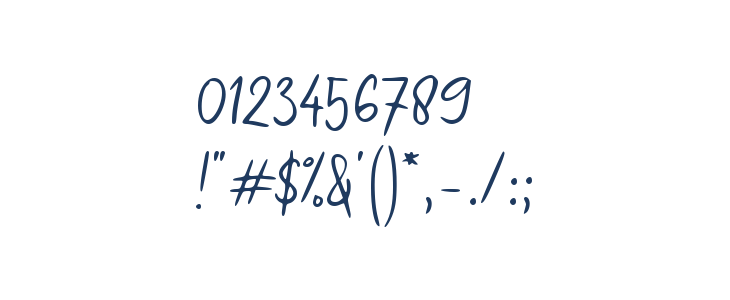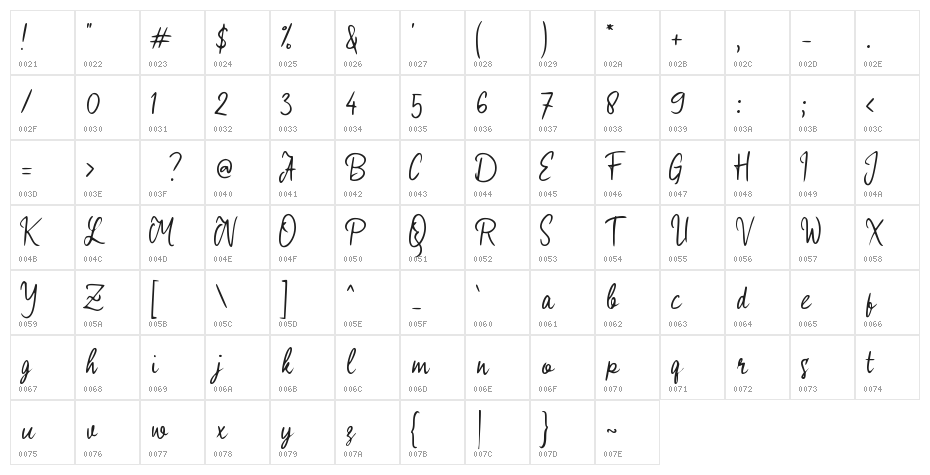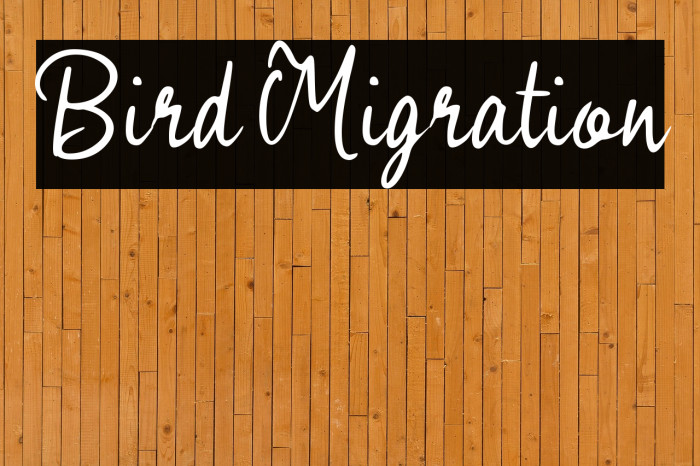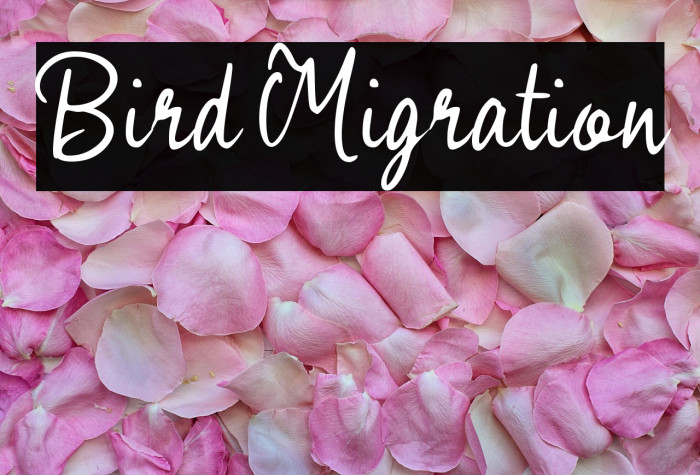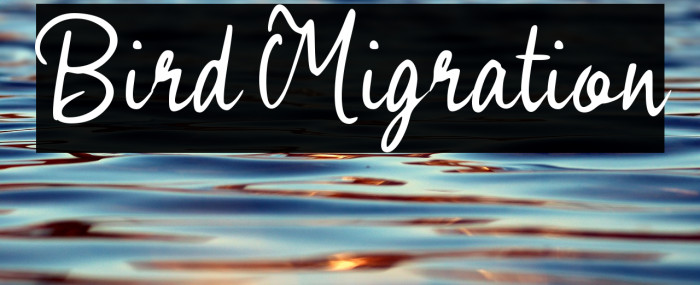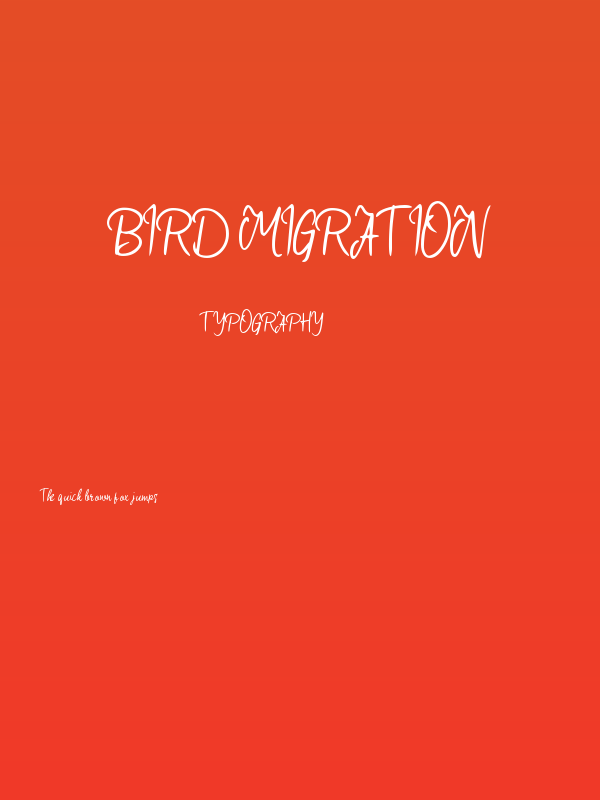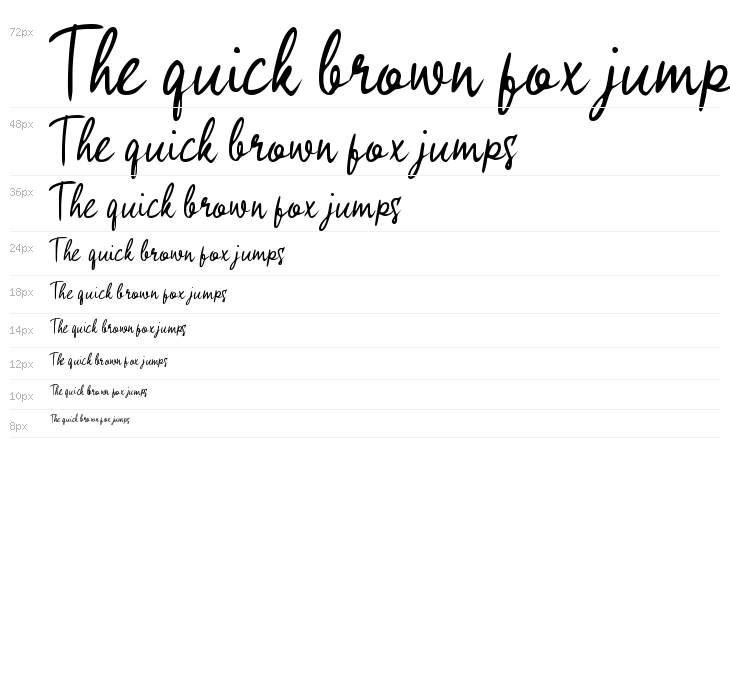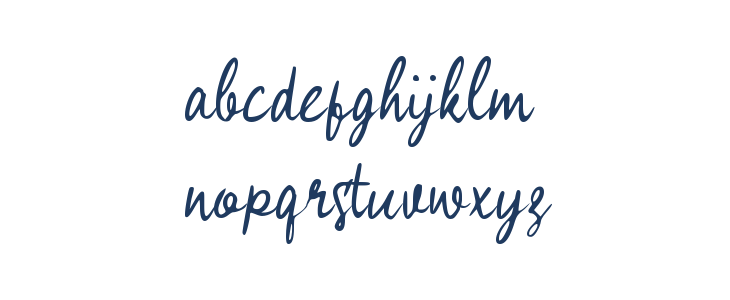
Bird Migration Font
Bird Migration Description
This font features a dynamic and flowing script style, characterized by its elegant and fluid strokes. The uppercase letters exhibit a graceful, cursive form with a slight slant, adding a sense of movement and sophistication. The lowercase letters maintain a consistent style, complementing the uppercase with their smooth curves and connected strokes. The numerals are designed with a similar flair, ensuring cohesion throughout the font. Special characters are thoughtfully crafted to match the overall aesthetic, making this font versatile for various uses. Its handwritten appearance gives it a personal and artistic touch, ideal for projects that require a humanistic and approachable feel.
| Use Case | Logos, Invitations, Greeting Cards |
| Proposed Projects | Ideal for wedding invitations, greeting cards, branding, and logo design. |